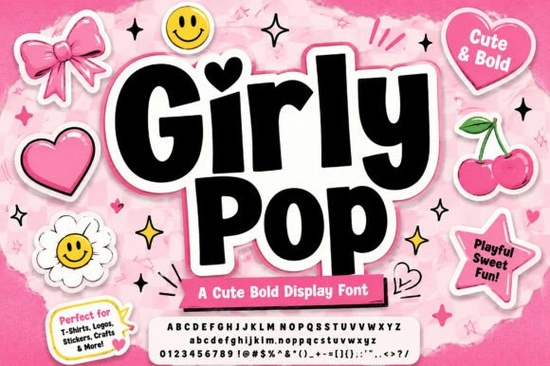
If you're looking for a bold, playful typeface that brings serious early-2000s energy to your designs, the Girly Pop Font is a standout choice. This chunky display typeface features bouncing letterforms, soft rounded corners, a crisp white outline, and a dramatic pink sticker drop shadow. It's made for designers, crafters, and print-on-demand sellers who want their headlines to feel fun, loud, and unmistakably Y2K.
What makes Girly Pop Font different from other bold display fonts?
Plenty of display fonts claim to be bold and playful, but Girly Pop actually delivers on both. The interlocking letterforms are designed with a bouncing baseline, which gives your text a sense of movement and personality that flat, static fonts just can't match. The rounded corners soften the overall look, making it feel friendly instead of aggressive. And the built-in pink outer sticker drop shadow? That's the detail that takes it from "nice font" to "instant eye-catcher."
Unlike fonts that rely on effects you have to add manually in your design software, Girly Pop bakes its signature style right into the letterforms. You type, and the look is already there. That saves time, especially when you're working on batch projects like sticker sheets or social media templates.
Who is this font best suited for?
Girly Pop works well for a specific type of creative project. Here's where it really shines:
- Custom merchandise Tote bags, mugs, and phone cases with catchy phrases look great in this style.
- Streetwear and apparel Bold, oversized text on tees and hoodies fits perfectly with the Y2K aesthetic.
- Sticker sheets and planner accessories The rounded, bubbly shapes translate well to die-cut stickers.
- Social media graphics Instagram posts, story templates, and thumbnail text that needs to grab attention fast.
- Party invitations and event flyers Birthday parties, bachelorette weekends, and themed events all benefit from this kind of energy.
If your audience skews younger or your brand leans into fun, colorful aesthetics, this font fits right in. It pairs especially well with pastel color palettes and clean layouts where the typeface can be the star.
How does Girly Pop compare to similar Y2K and bubbly fonts?
Creative Fabrica has a solid collection of playful display fonts, and Girly Pop holds its own among them. If you like the bubbly vibe but want something slightly softer, the Sweetie Honey display font offers a warm, honey-dripped aesthetic that's equally charming. For a duo-font setup with mix-and-match options, Thick Honey Duo gives you flexibility for layered headline designs.
If you're drawn to the retro side of things, Retro Holly brings a vintage holiday flair, while Vintage Western takes a completely different direction with rugged, old-school Americana lettering. And for something with that same squishy, rounded quality, Jelly Puff is another bubbly option worth checking out.
Each of these fonts has its own personality, so the right pick depends on the specific mood you're going for. Girly Pop is the strongest choice when you want that unmistakable Y2K sticker-shock look with built-in shadow effects.
Tips for getting the most out of this font
- Use it for headlines only. This font is a display typeface, which means it's built for short, punchy text not body copy or long paragraphs.
- Keep your background simple. Because Girly Pop already has a lot going on visually, pair it with clean, uncluttered layouts.
- Try it at larger sizes. The bouncing baseline and drop shadow details read best when the font is sized up. Small text can look muddy.
- Test your color combinations. The white outline and pink shadow work beautifully on both light and dark backgrounds, but always preview before finalizing.
- Pair it with a simple sans-serif. For supporting text or descriptions, use a clean, neutral font so Girly Pop stays the focal point.
Your quick checklist before using Girly Pop in a project
Before you start designing, make sure you've confirmed the font license covers your intended use, tested it at the size and background color you plan to use, and paired it with a secondary font that won't compete for attention. If you're creating for print-on-demand, do a test print to see how the shadow effect reproduces on your specific product. Taking five minutes to prep saves you from reworking files later.